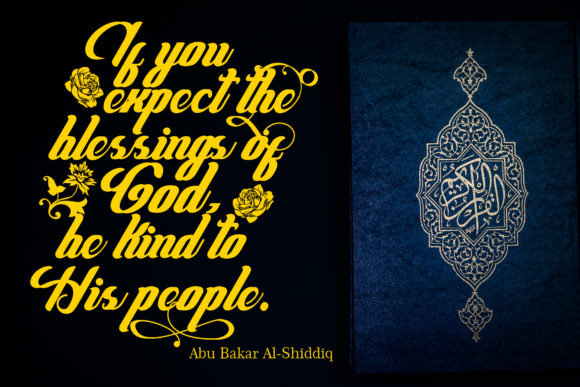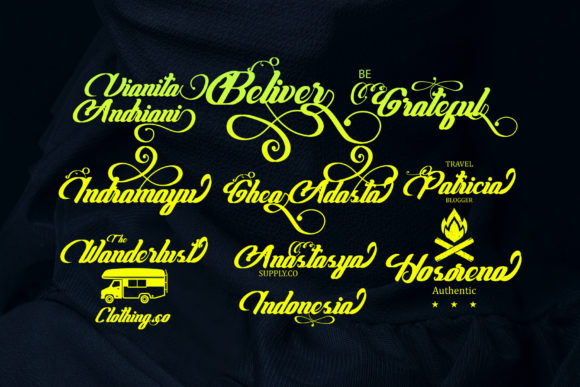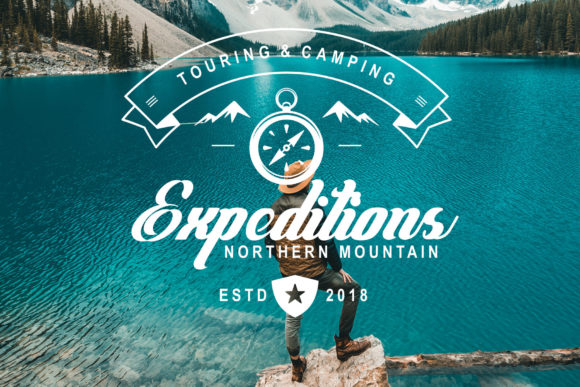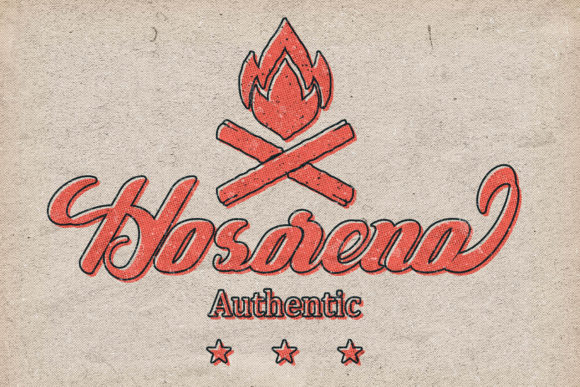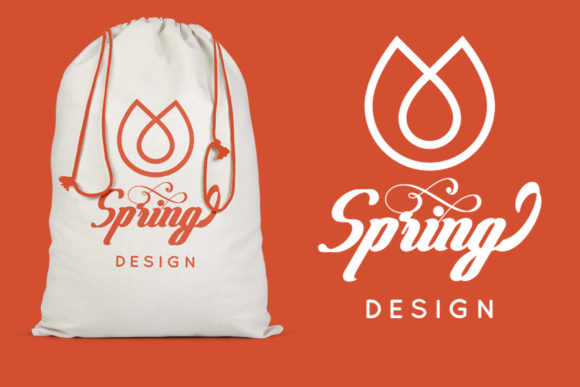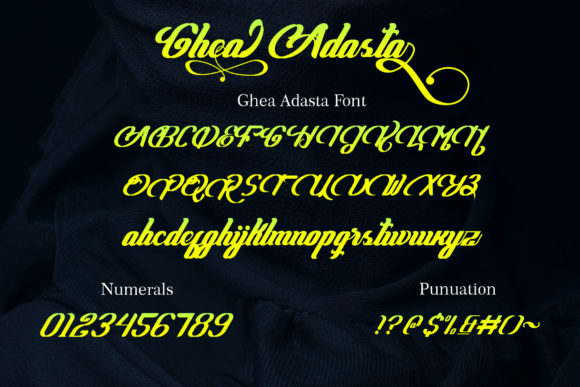
The Ghea Adasta Script Font: A Trendy Typographic Gem
I’ll never forget the time I was working on a project for a client who wanted a logo that screamed elegance and sophistication. I spent hours scouring the internet for the perfect font, but nothing seemed quite right. That was until I stumbled upon the Ghea Adasta script font. Its unique blend of handwritten charm and trendy typography instantly caught my eye, and I knew I had found the perfect fit. In this article, I’ll share my love for this amazing font, its features, and how to make the most of it in your designs.
- ✨ The Ghea Adasta script font has a beautiful, bouncy baseline that adds a touch of playfulness to any design.
- ✅ Its handwritten touch makes it perfect for creating unique and personalized designs.
- 💫 The font is incredibly versatile and can be used for a wide range of projects, from logos and product packaging to social media graphics and greeting cards.
- 🎨 The font’s trendy typography ensures that your designs will look modern and fresh.
While the Ghea Adasta script font is amazing, it’s not without its quirks. For example:
- 🤔 The font can be a bit tricky to read at small sizes, so it’s best to use it for headlines or titles rather than body text.
- ⚠️ Some of the letters have a slightly irregular shape, which can make it challenging to pair with other fonts.
The Ghea Adasta script font was inspired by the work of Gesha, a talented type designer known for their beautiful and unique fonts. The font’s creator wanted to create a script font that would capture the essence of trendy typography while still maintaining a handwritten touch. The result is a font that’s both elegant and playful, perfect for designers who want to add a touch of personality to their work.
| Font Name | Ghea Adasta Script Font |
| Author | MysticalType |
Q: What is the Ghea Adasta script font best used for?
A: The Ghea Adasta script font is perfect for logos, product packaging, social media graphics, greeting cards, and any other design that needs a striking typeface.
Q: Is the Ghea Adasta script font easy to read?
A: The Ghea Adasta script font can be a bit tricky to read at small sizes, so it’s best to use it for headlines or titles rather than body text.